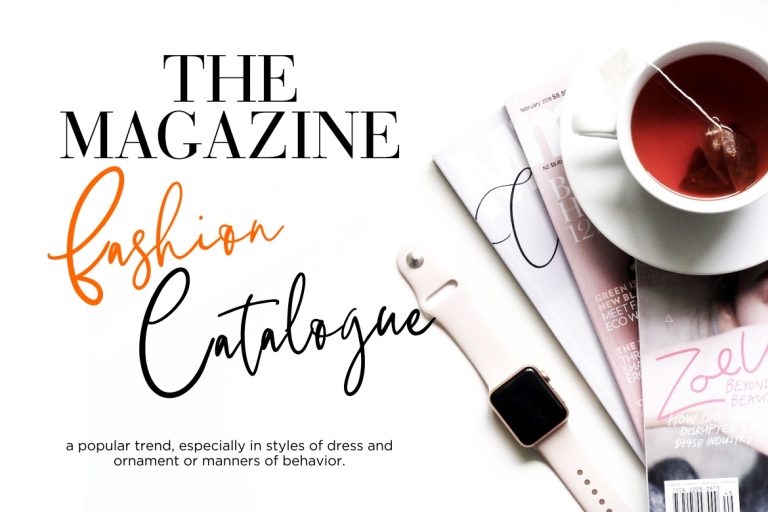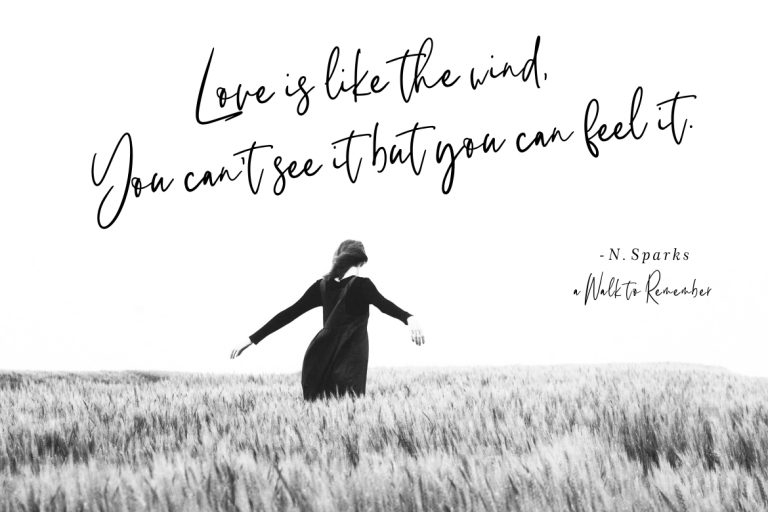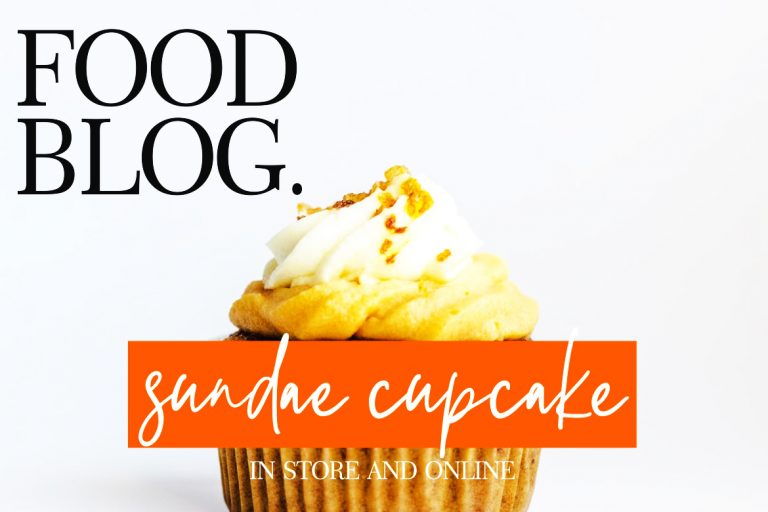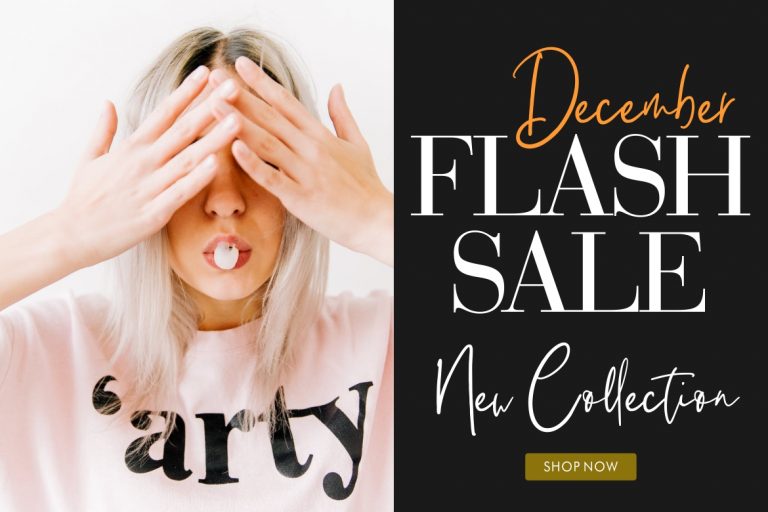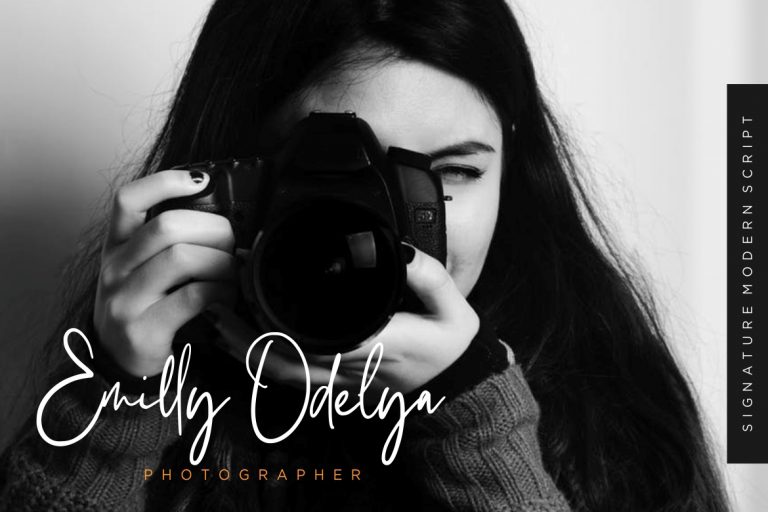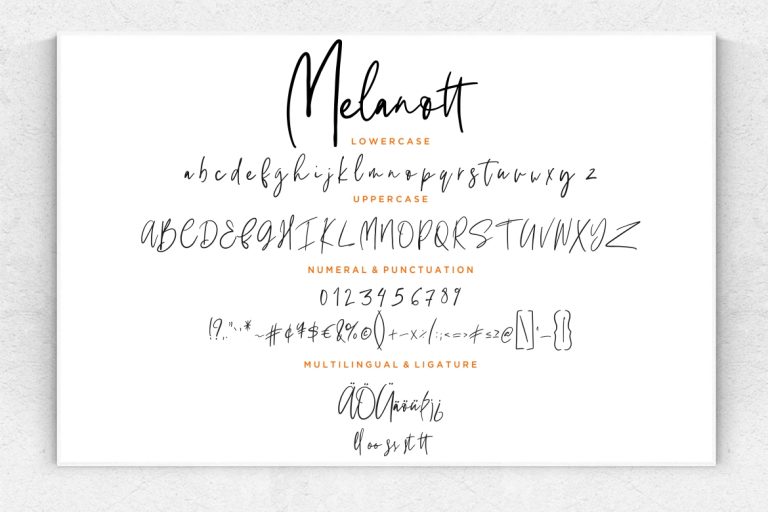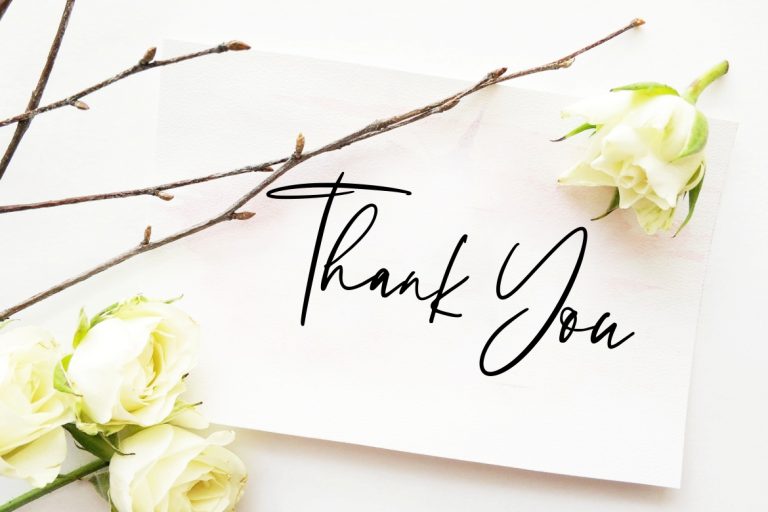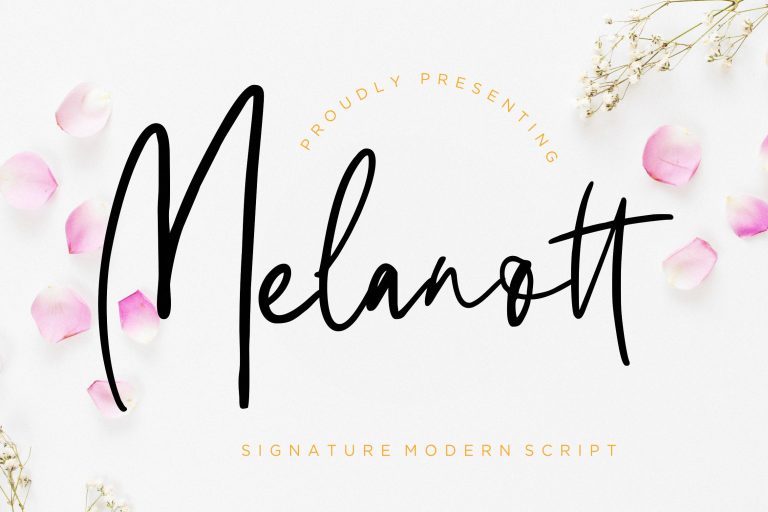
Melanott is handwritten font with modern signature script looks stylish and good for your projects.
Melanott is perfect for branding projects, logo, wedding designs, social media posts, advertisements, product packaging, product designs, label, photography, watermark, invitation, stationery and any projects that need handwriting taste.
• Standard glyphs
• Ligature
• Fonts include multilingual support for; ä ö ü Ä Ö Ü ß ¿ ¡
Melanott Modern Signature